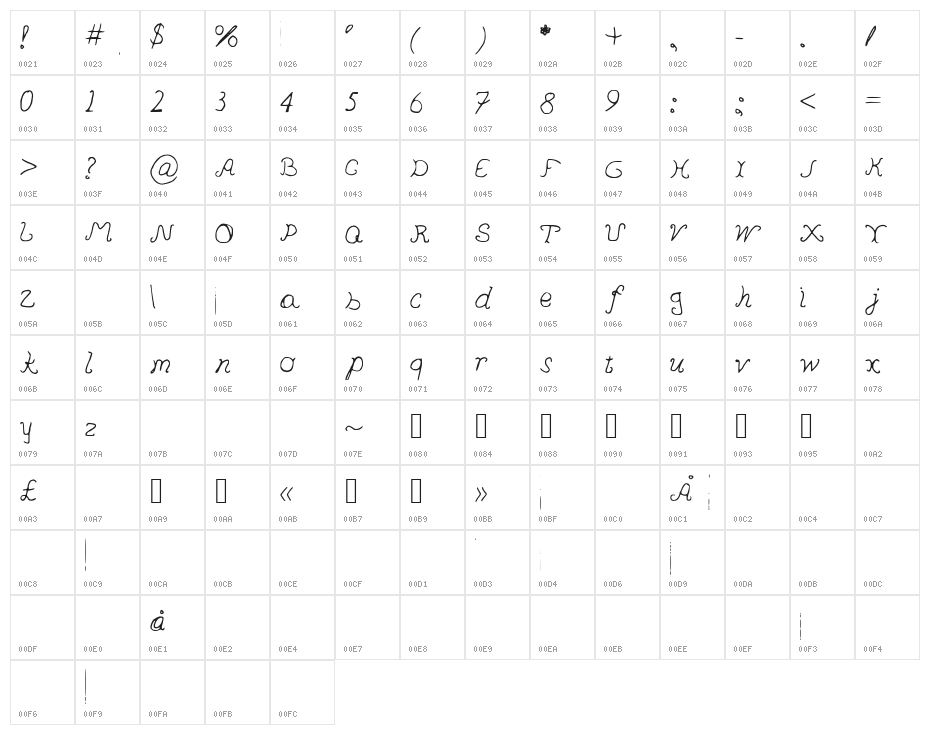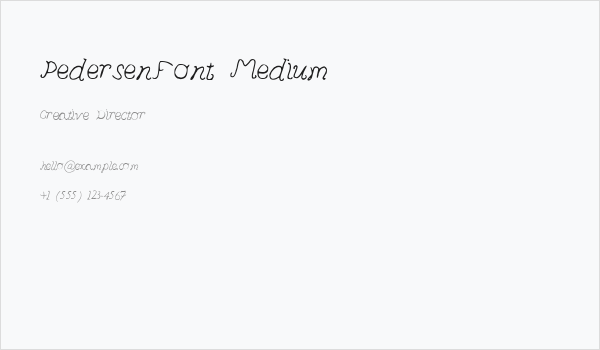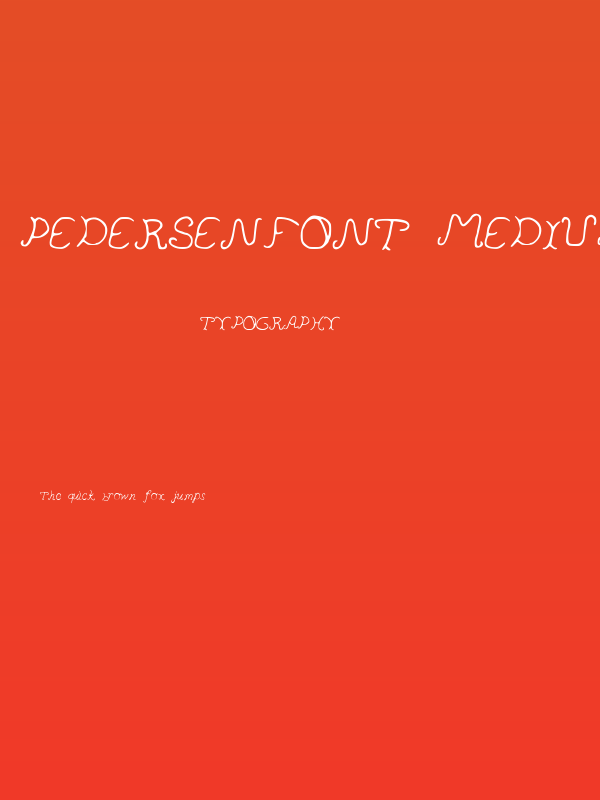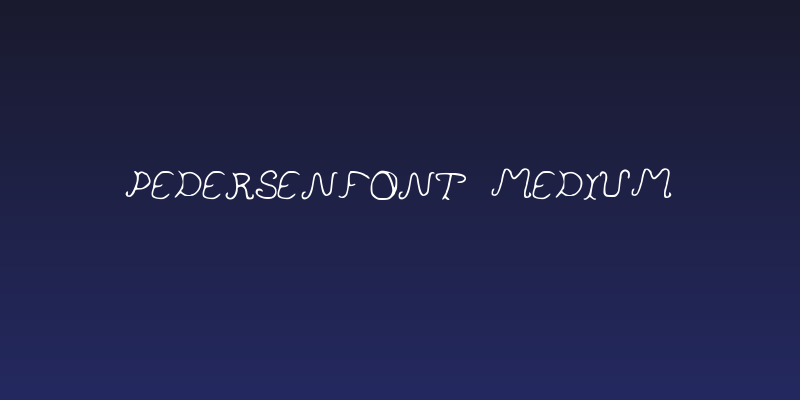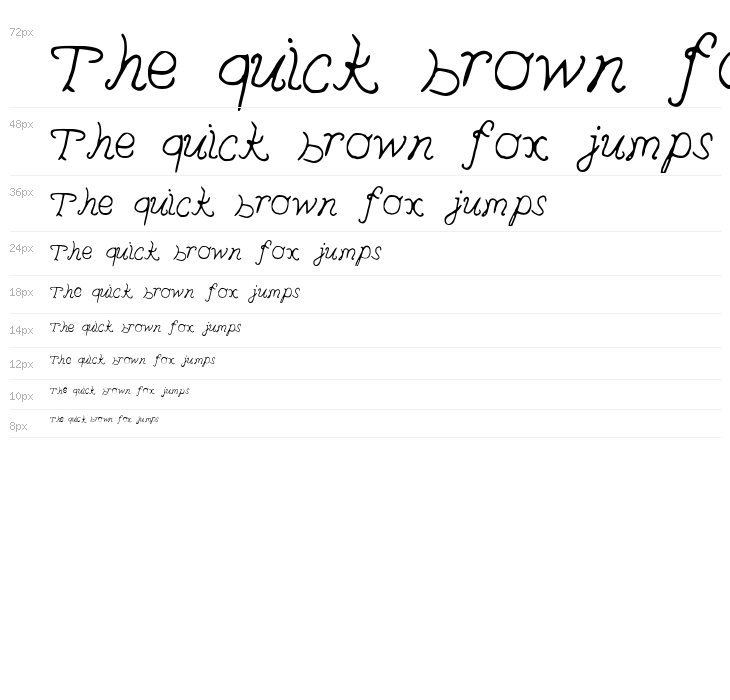
PedersenFont Medium Font
✎ Curly
| Stile generale | Casual, Playful |
| Caso d'uso | Greeting cards, Invitations, Children's books |
| Progetti proposti | Ideal for greeting cards, invitations, children's books, and playful branding projects. |